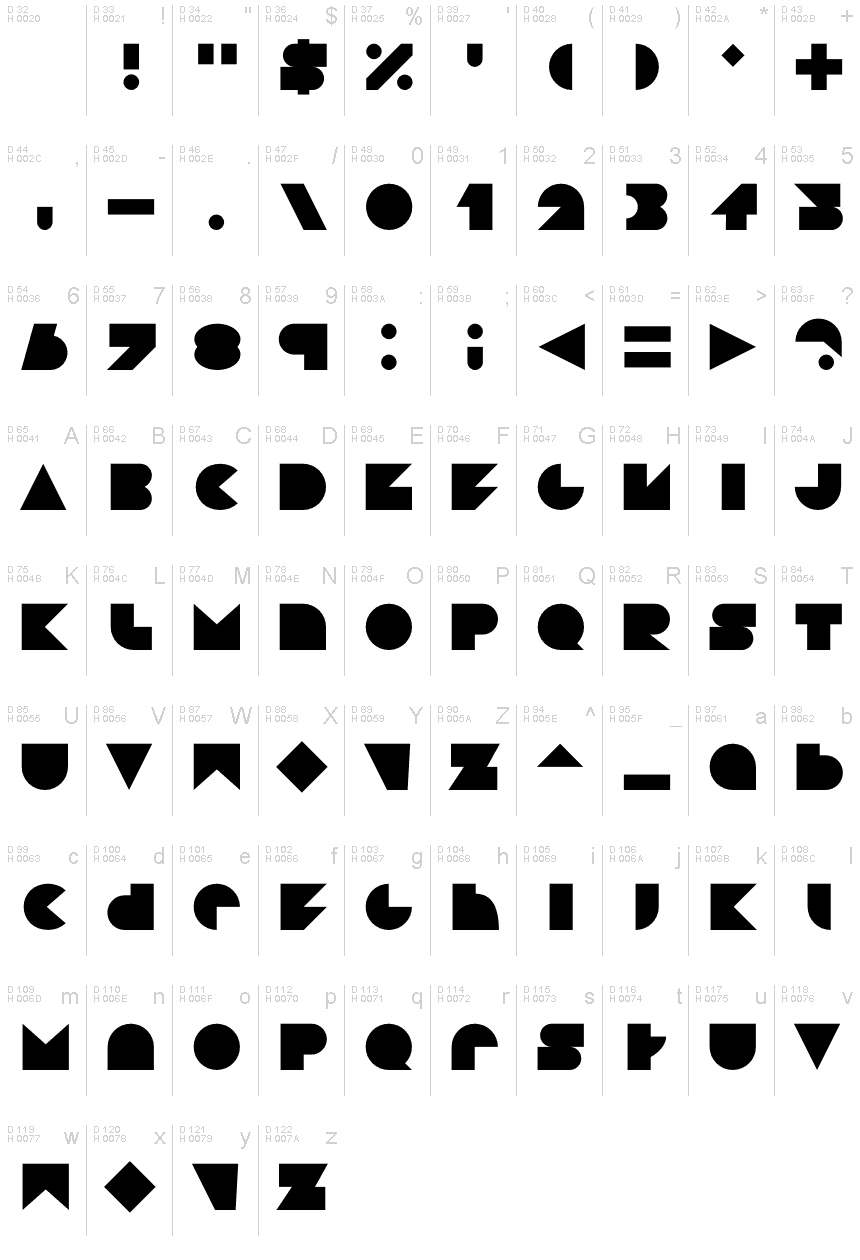
Geon
Geon, crafted by designer Levi, is an ultra-bold and expanded display font that demands attention and leaves a lasting impact.
With its strong, bold strokes and wide letterforms, Geon is perfect for projects that require a powerful and eye-catching headline or logo. This font exudes confidence and strength, making it suitable for branding materials of sports teams or fitness centers. Its unique style also lends itself well to futuristic designs, sci-fi book covers, or technology-focused websites.
Geon's commanding presence will ensure your message stands out in any visual medium.